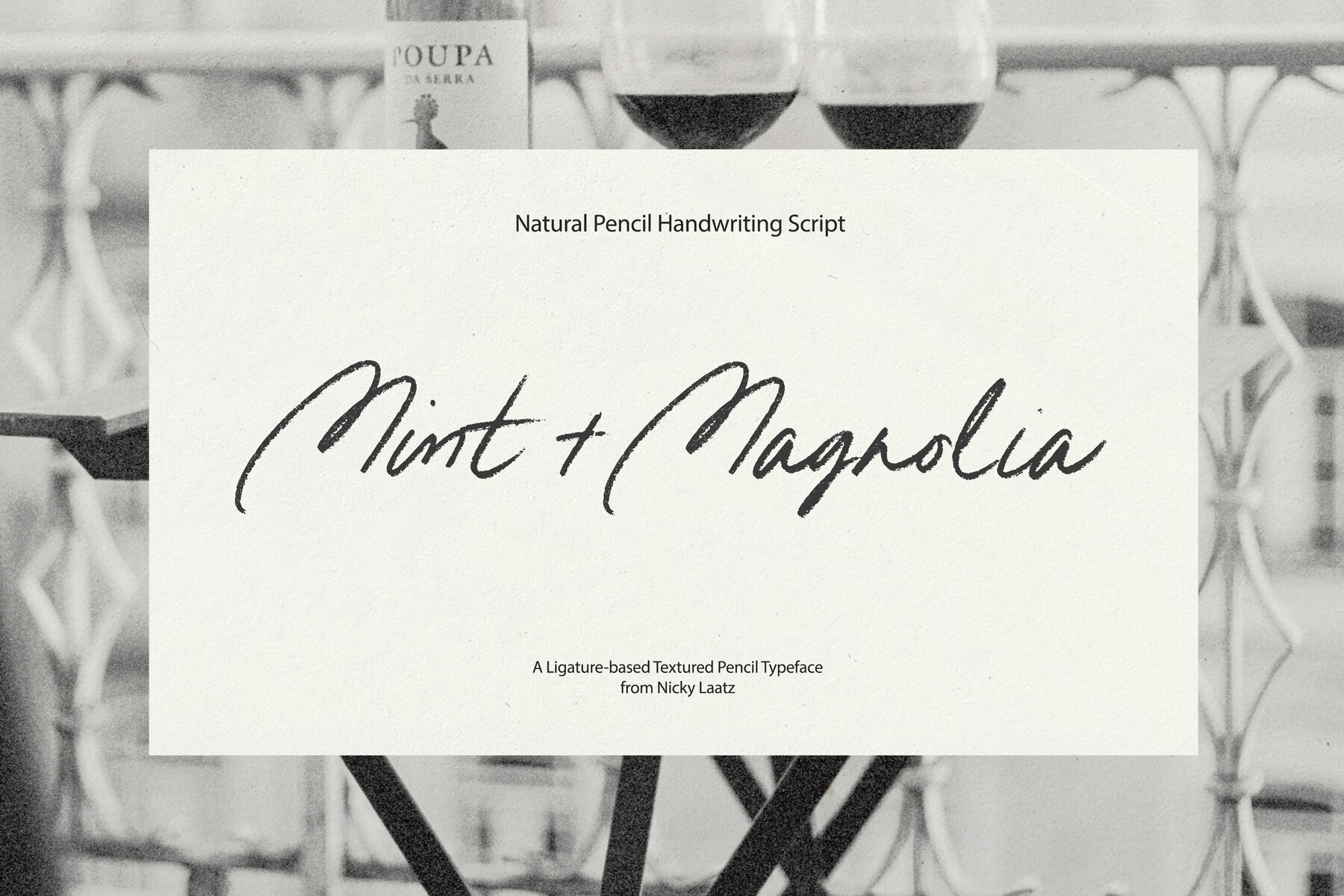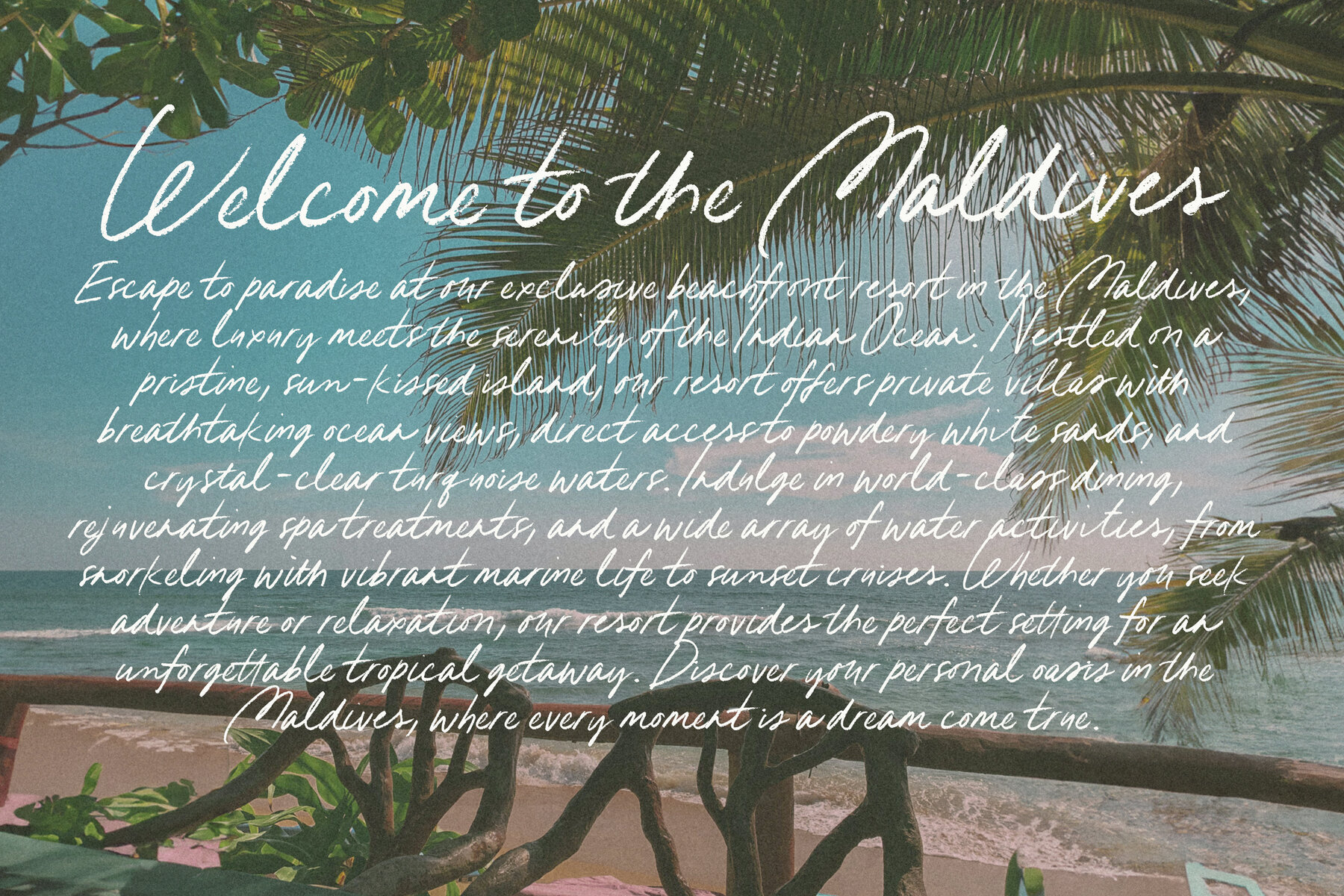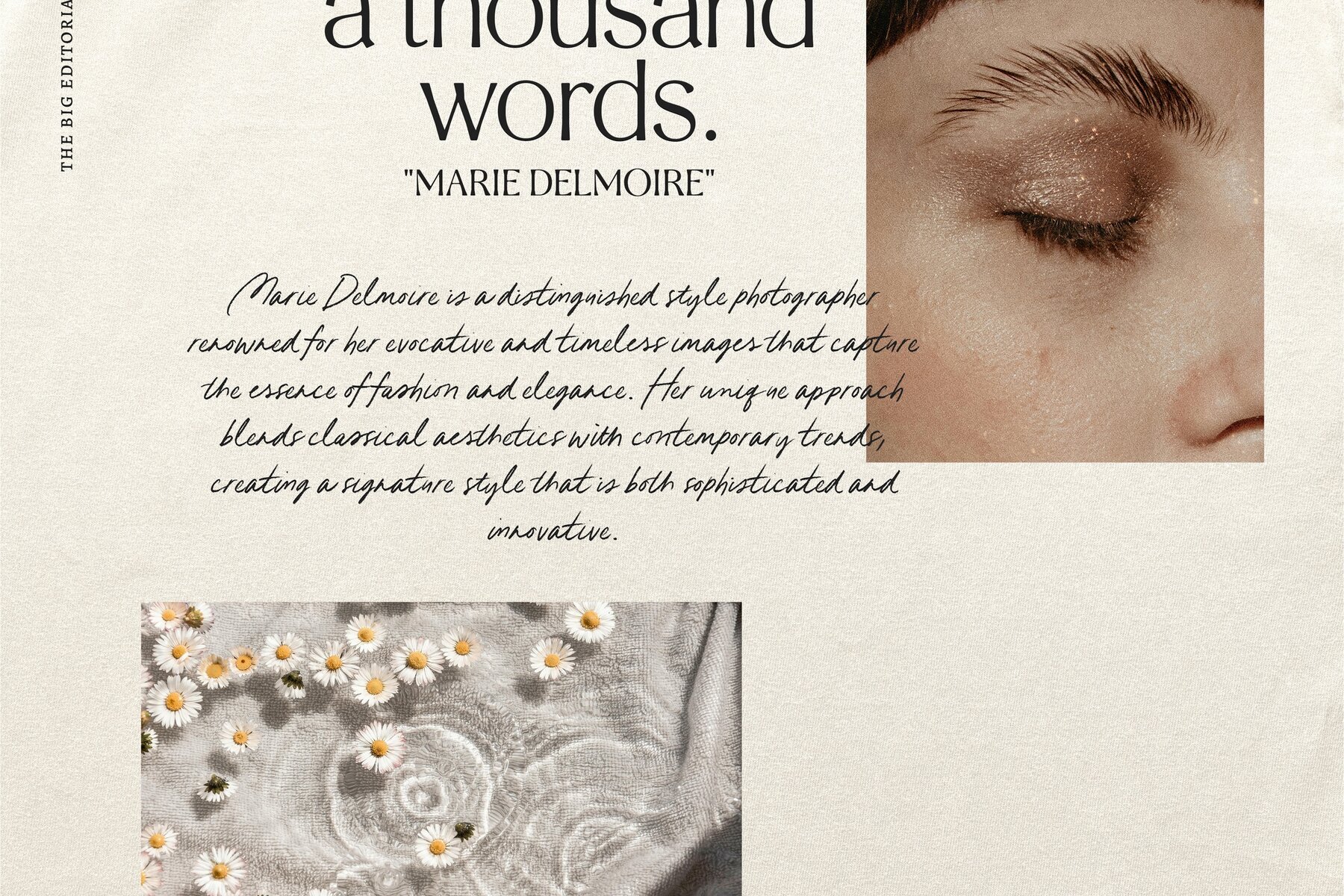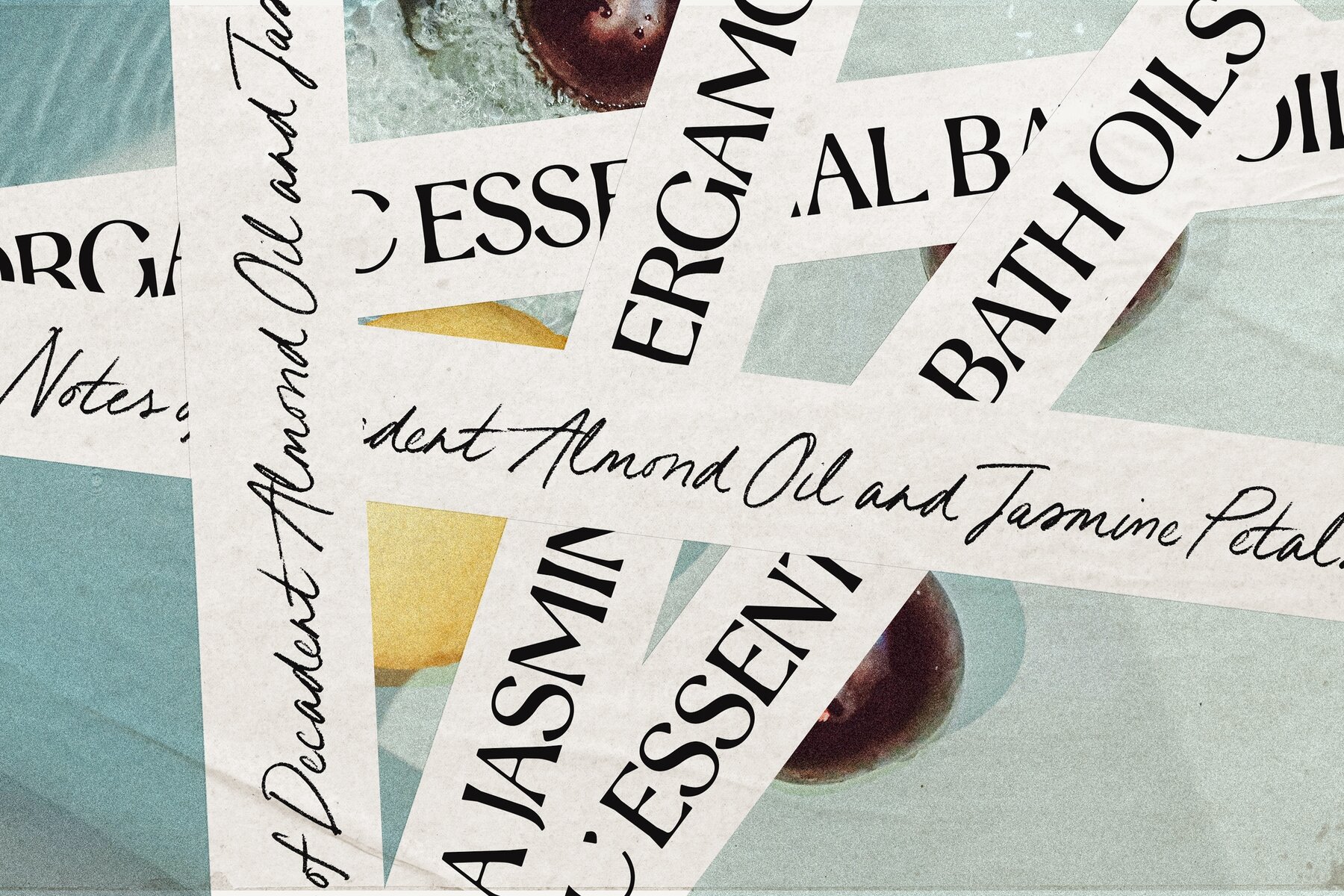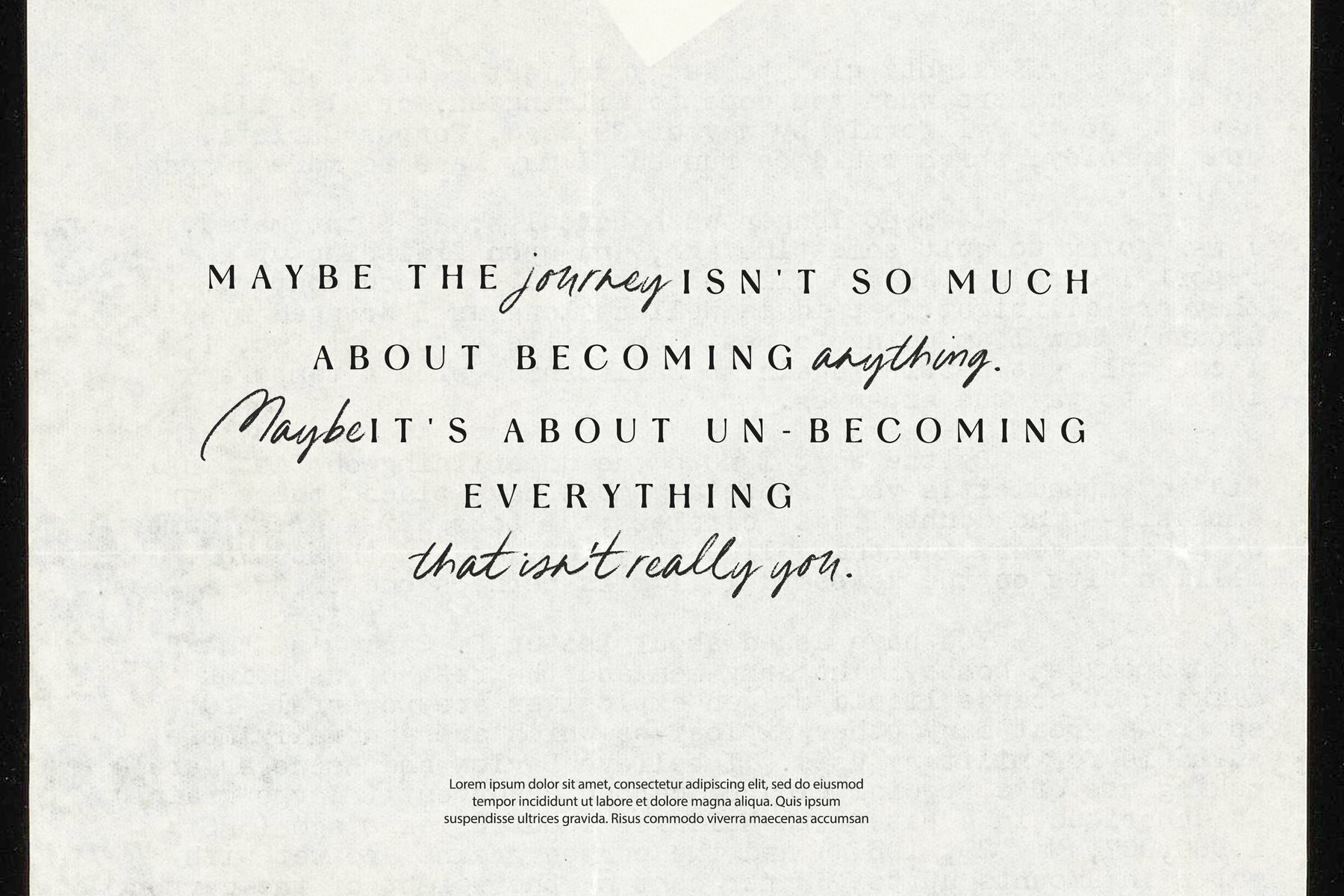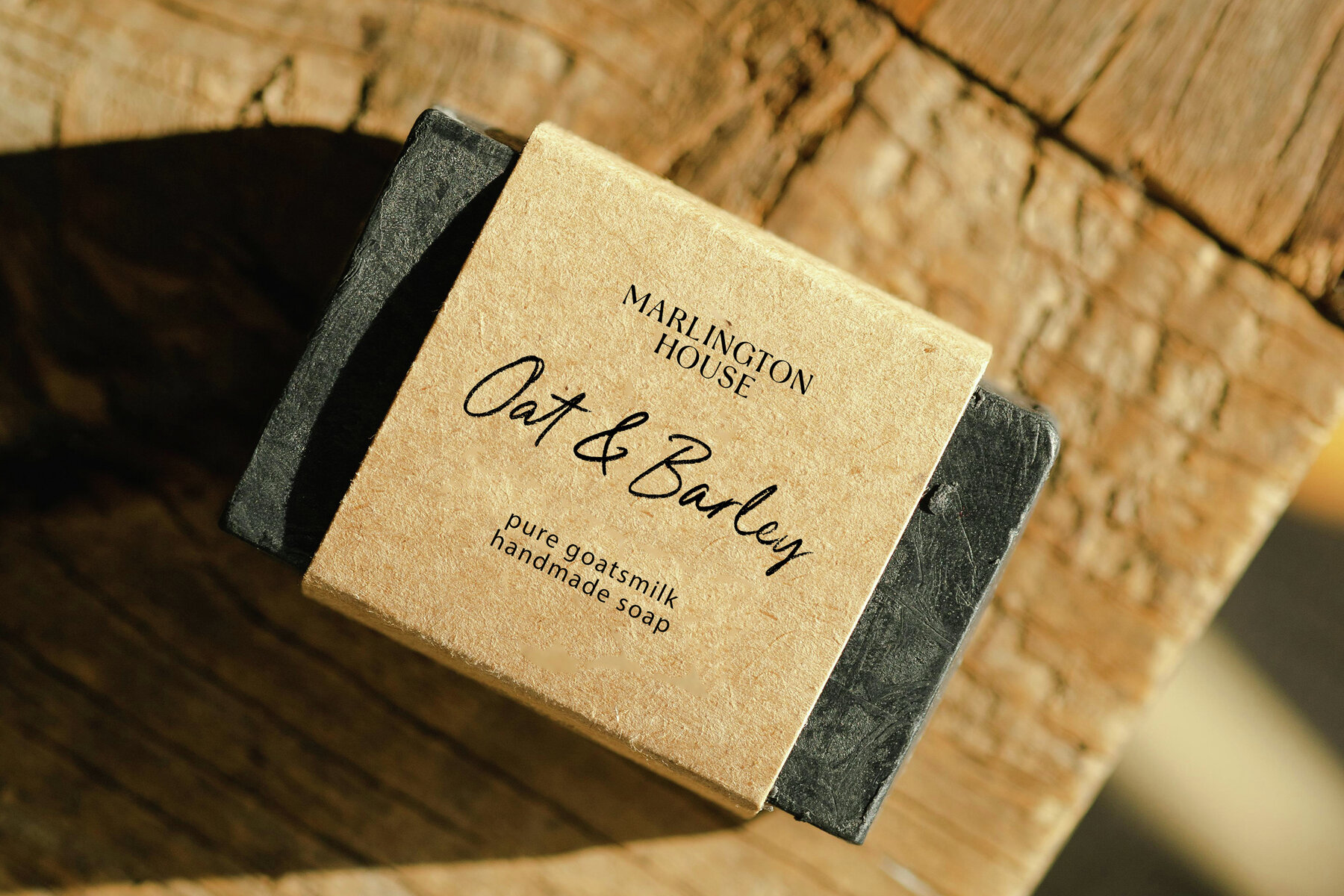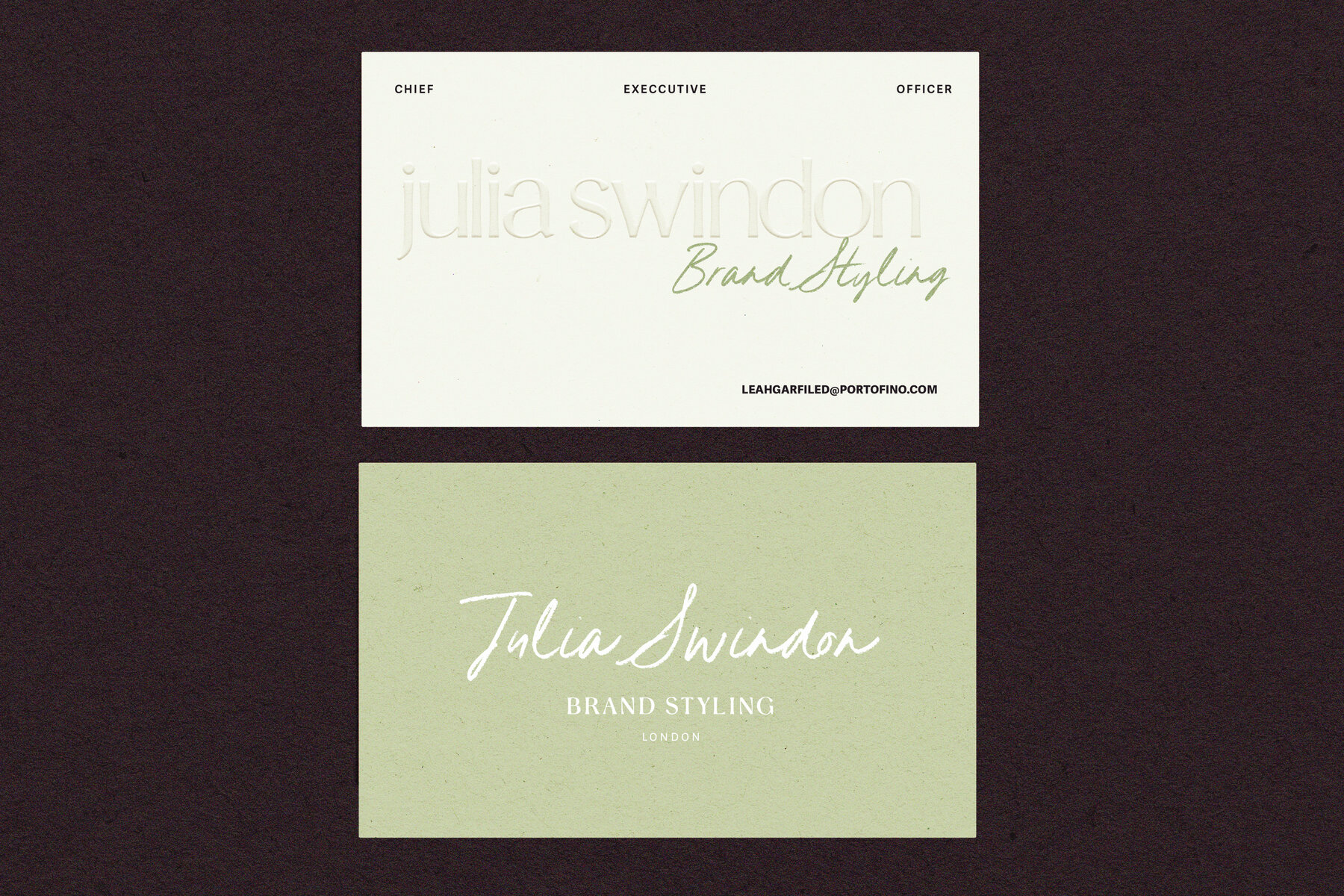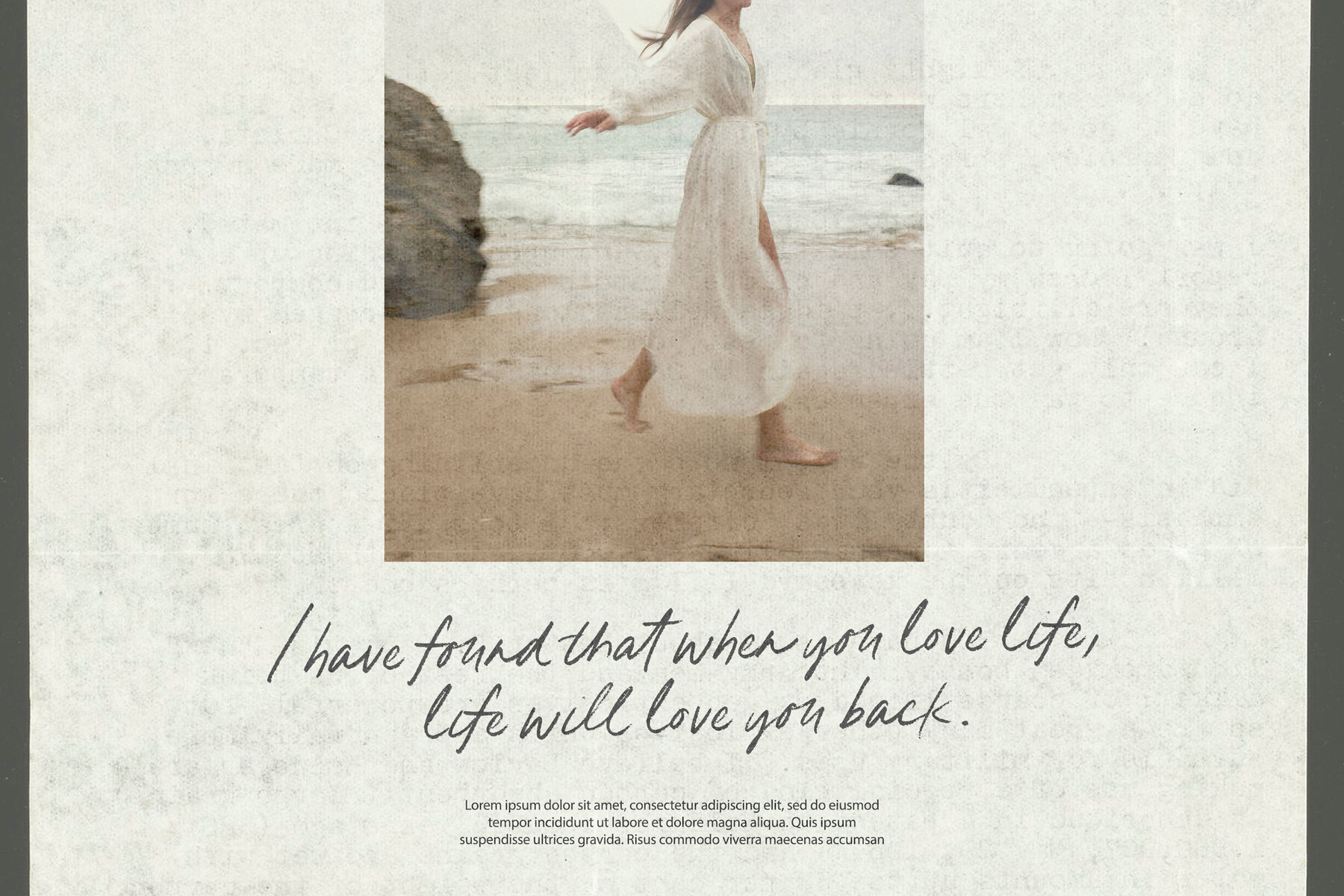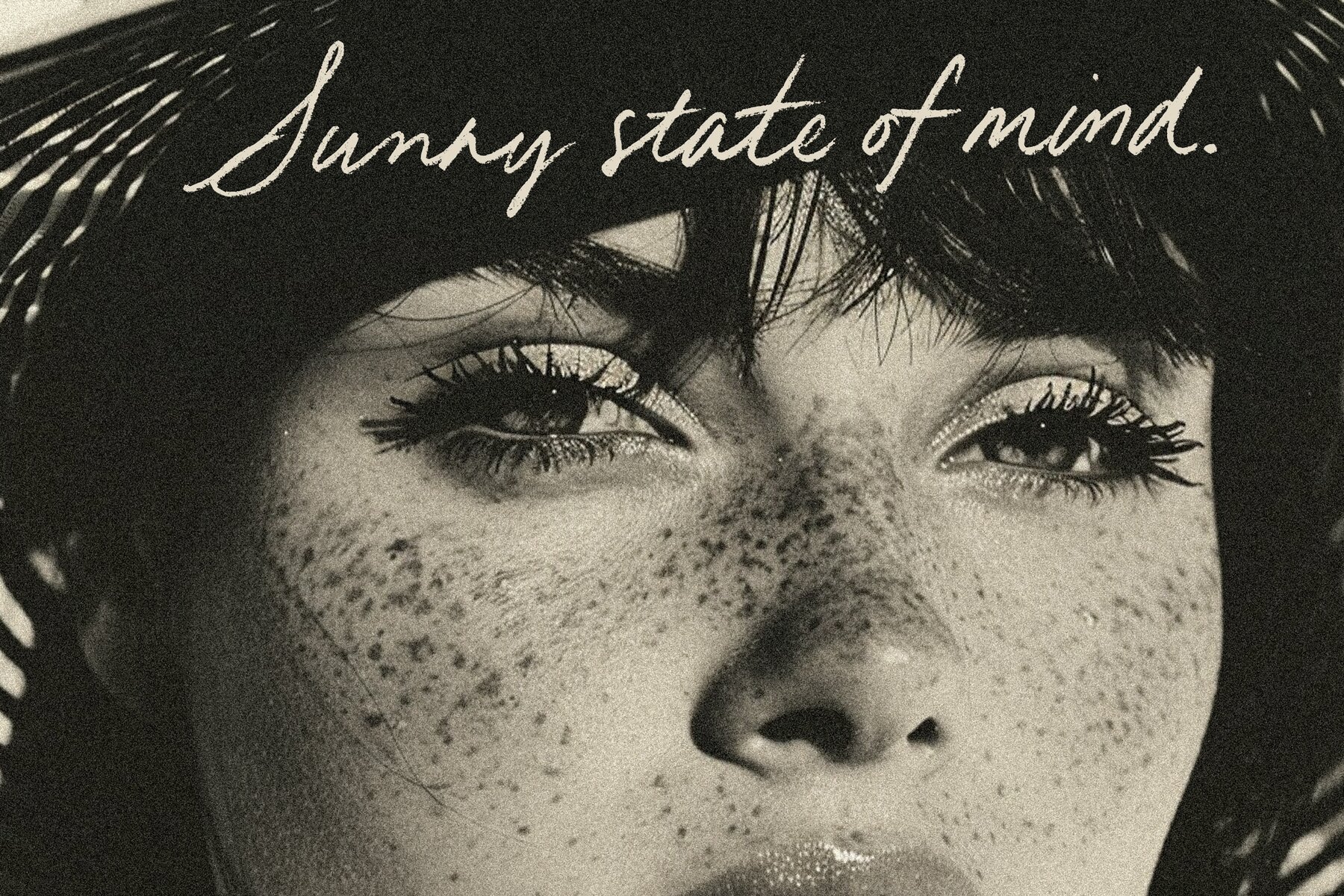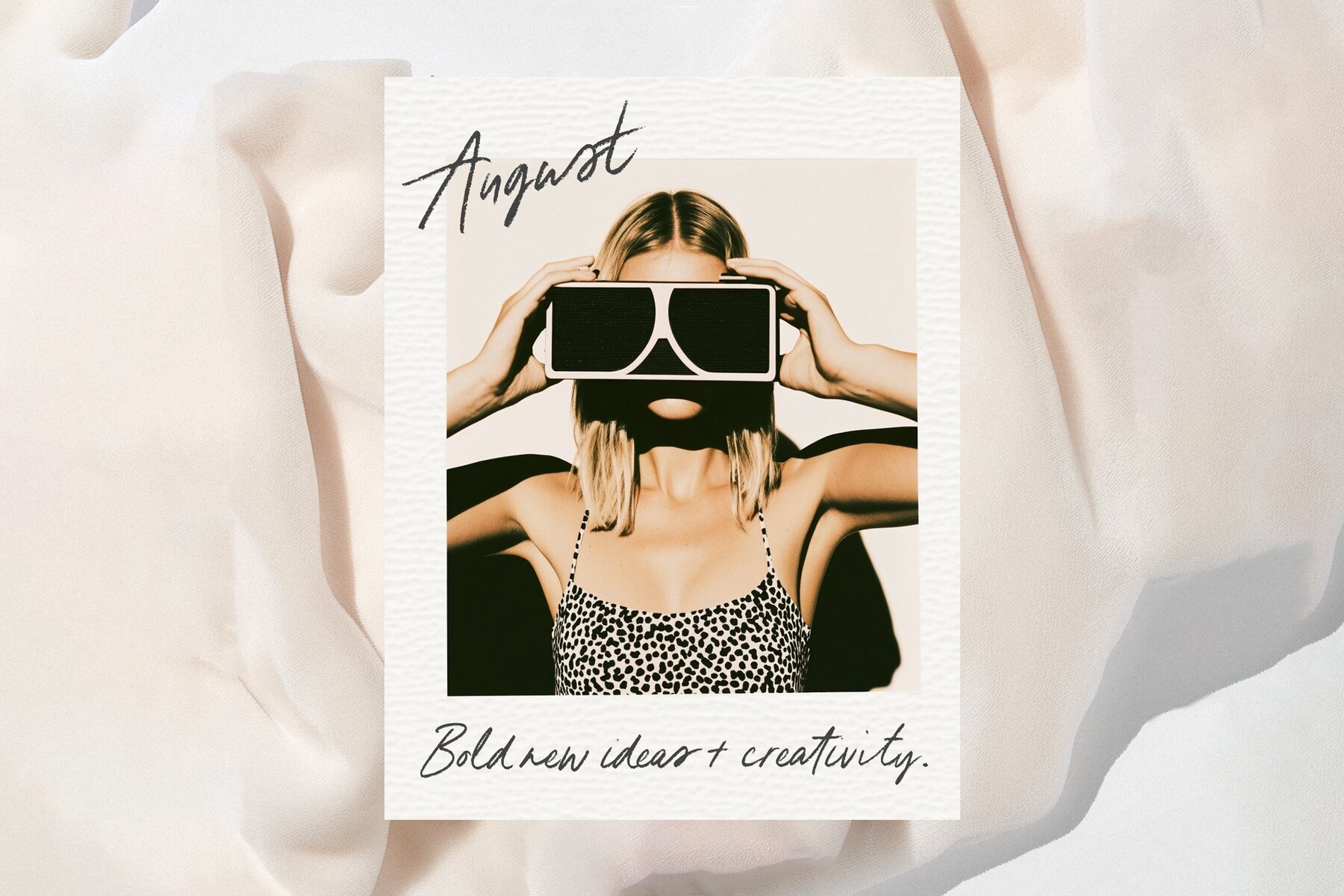
Mint Magnolia Font
Say hello to the new 'Mint + Magnolia' Typeface....a casual yet classy, handwritten pencil script. Mint + Magnolia comes in a regular version, and a slightly more oblique/slanted version - each displaying slightly differing personalities. Both styles are available as Bitmap SVG and Regular Vector fonts. Opentype Ligatures : Mint + Magnolia comes to life when you have your Opentype Ligatures turned on as you type - specially designed double letter combos ( ligatures) display automatically with Opentype Features active in your design app. If you don't have an app that supports Opentype Features - you can still access the ligatures via by copying from Fontbook or Charmap ( Mint + Magnolia is PUA encoded) Fonts included in this pack : The Typeface predominantly used alongside the script in some of the previews ( not included in this pack, available for purchase separately) is called ' Stylish Aesthetic. Language Support : Regular Vector Version : Danish, English, Filipino, French, Friulian, Galician, German, Irish, Italian, Low German, Luo, Luxembourgish,Norwegian Bokmål, Norwegian Nynorsk, Spanish, Swedish, Swiss German. SVG Version : English support only. Please Note: The SVG font is designed to be printed at normal size handwriting, not at very large sizes, at which the raster bitmap characters may lose sharpness and quality. A print height of no more than 1cm high for the uppercase letters is recommended, before quality loss starts occuring. For large sizing, it is recommended the Vector version is used. Show Less